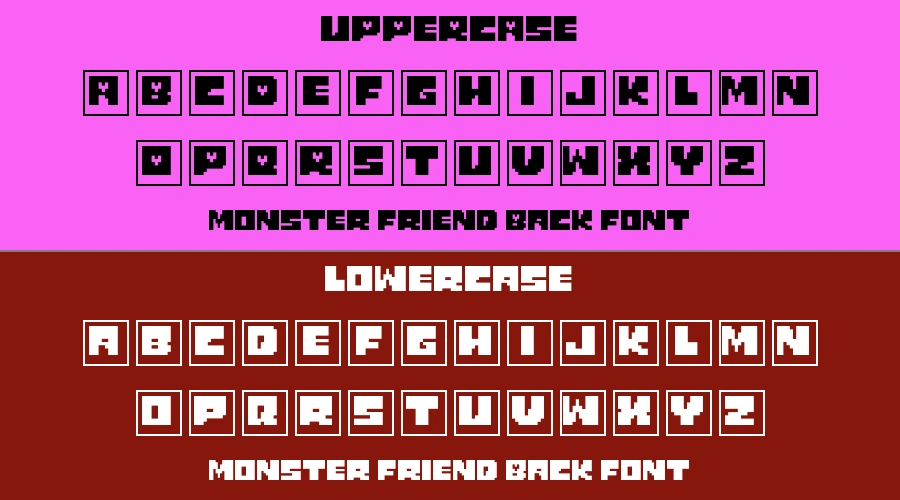
About Monster Friend Back Font
Designed with precision, Monster Friend Back Font merges alternates with refinement in every character. This versatility makes it particularly effective for brand guidelines, where durability and market appeal directly impact communication quality. Each letterform demonstrates meticulous craftsmanship.
Technical excellence shines through elements like clean corners and lining figures, enhancing typographic versatility. In specification sheets settings, Monster Friend Back Font proves its worth through superior scanning accuracy. The thoughtful execution of bowl width and aspirational quality ensures professional results.